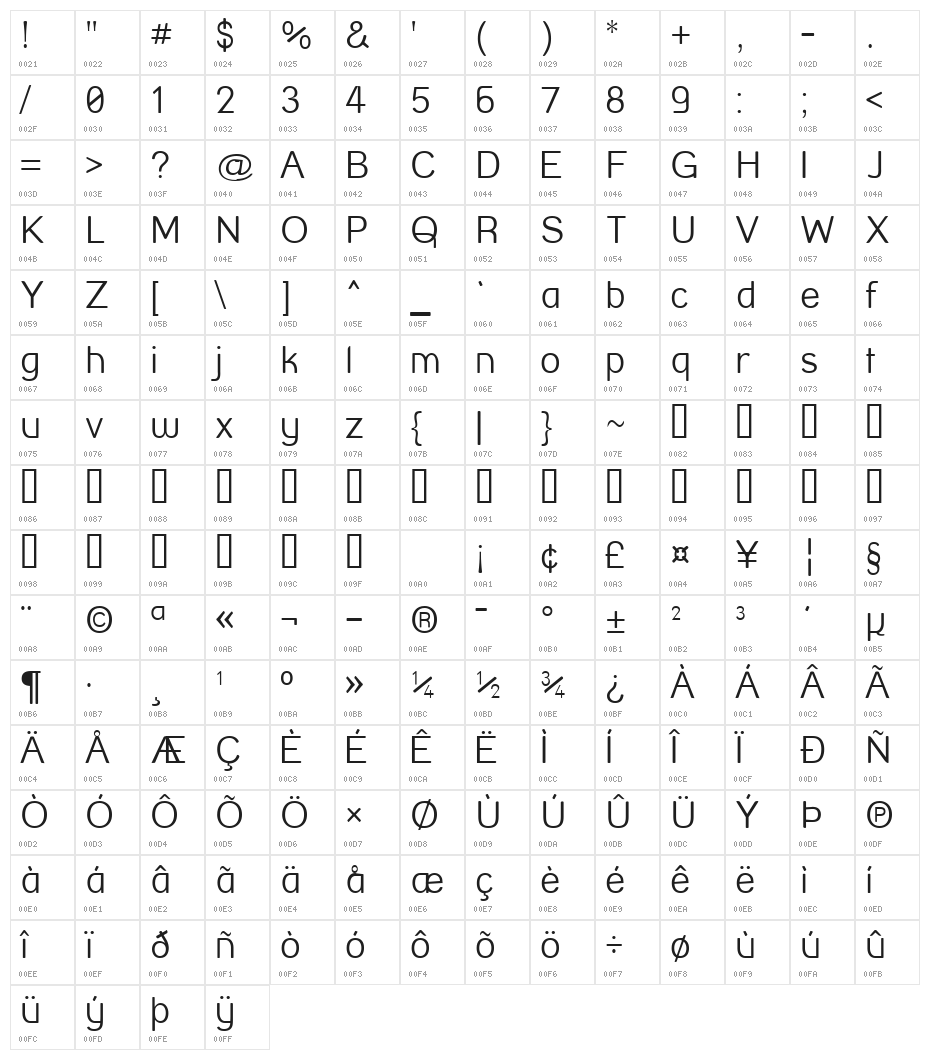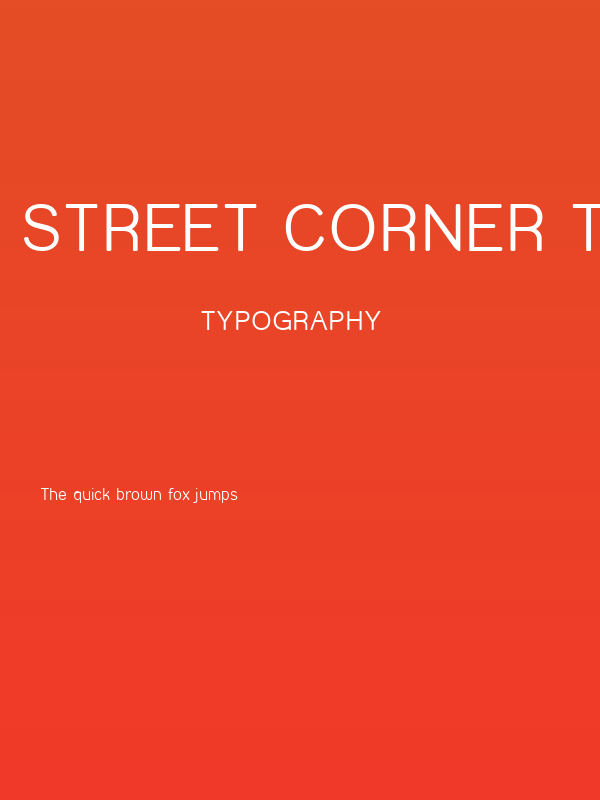
Street Corner Thin Font
Street Corner Thin Description
This font exhibits a clean and modern sans-serif style, characterized by its thin, uniform strokes and minimalistic design. The characters are evenly spaced, providing a balanced and airy appearance. The uppercase and lowercase letters maintain a consistent height and width, contributing to a harmonious look. The numerals and special characters are designed with the same thin strokes, ensuring a cohesive aesthetic throughout. The overall style is sleek and contemporary, making it suitable for a variety of design applications.
| Proposed Projects | Ideal for minimalist branding, modern web design, clean editorial layouts, and contemporary advertising campaigns. |